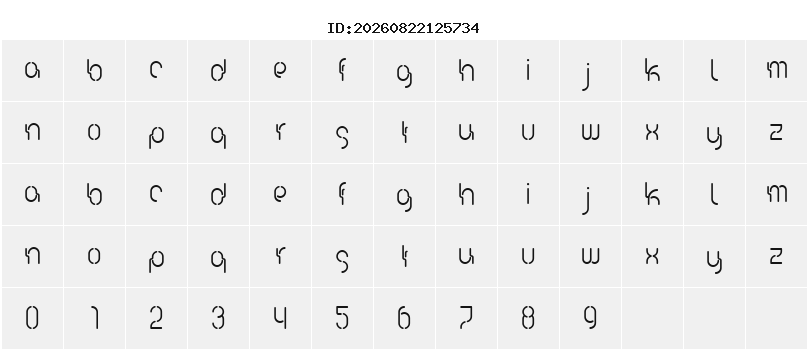
Scripio B Stencil Preview
• Font Name: Scripio B Stencil
• Designer: Artem Gerasimov
• Manufacturer: AType
About Scripio B Stencil.ttf
Scripio B Stencil.ttf is a modern, elegant sans-serif font designed for ultimate readability and visual harmony. Perfect for branding, headlines, web design, and print materials.